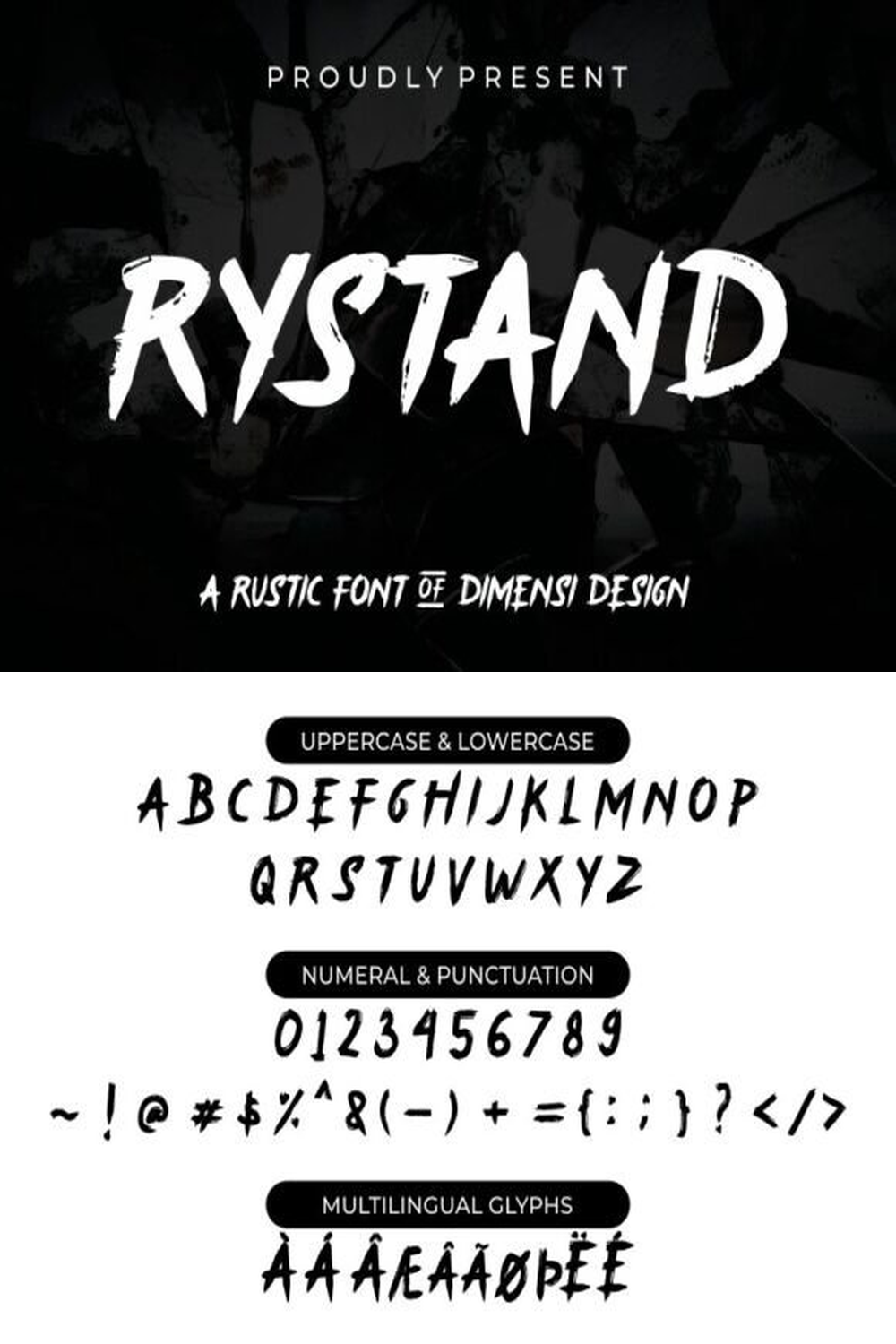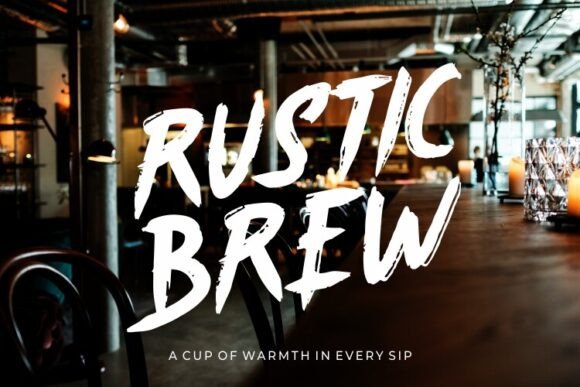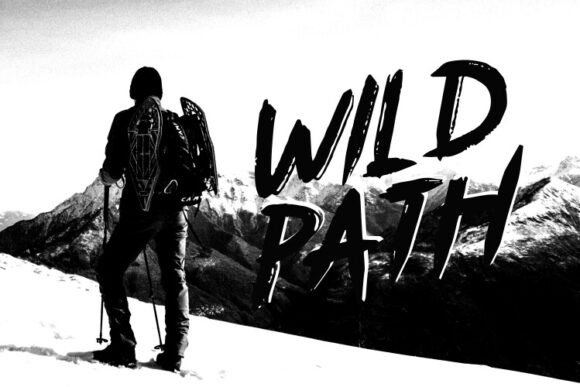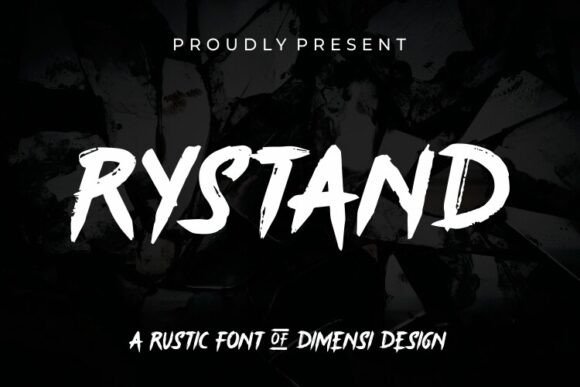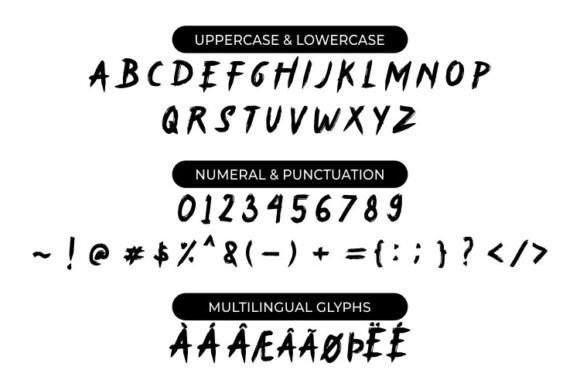
Rystand Font: Bold Rustic Display Font for Vintage Logo Design
About the Rystand Font
Discover the charm of Rystand Font. This font is a perfect blend of modern aesthetics and classic appeal. RYSTAND – Bold Rustic Display Font
RYSTAND is a strong and rugged display font with a rustic charm. Designed to bring a bold and vintage feel, this font is perfect for logos, branding, packaging, apparel, signage, posters, and more. With its textured and handcrafted look, RYSTAND adds character and authenticity to any design.
Features:
✔ Bold & Rustic Style
✔ Uppercase Letters
✔ Numbers & Punctuation
✔ Multilingual Support
✔ Perfect for Vintage & Outdoor Themes
Bring a touch of raw and adventurous energy to your designs with RYSTAND!
Rystand Font Usage Examples
Rystand Font Example